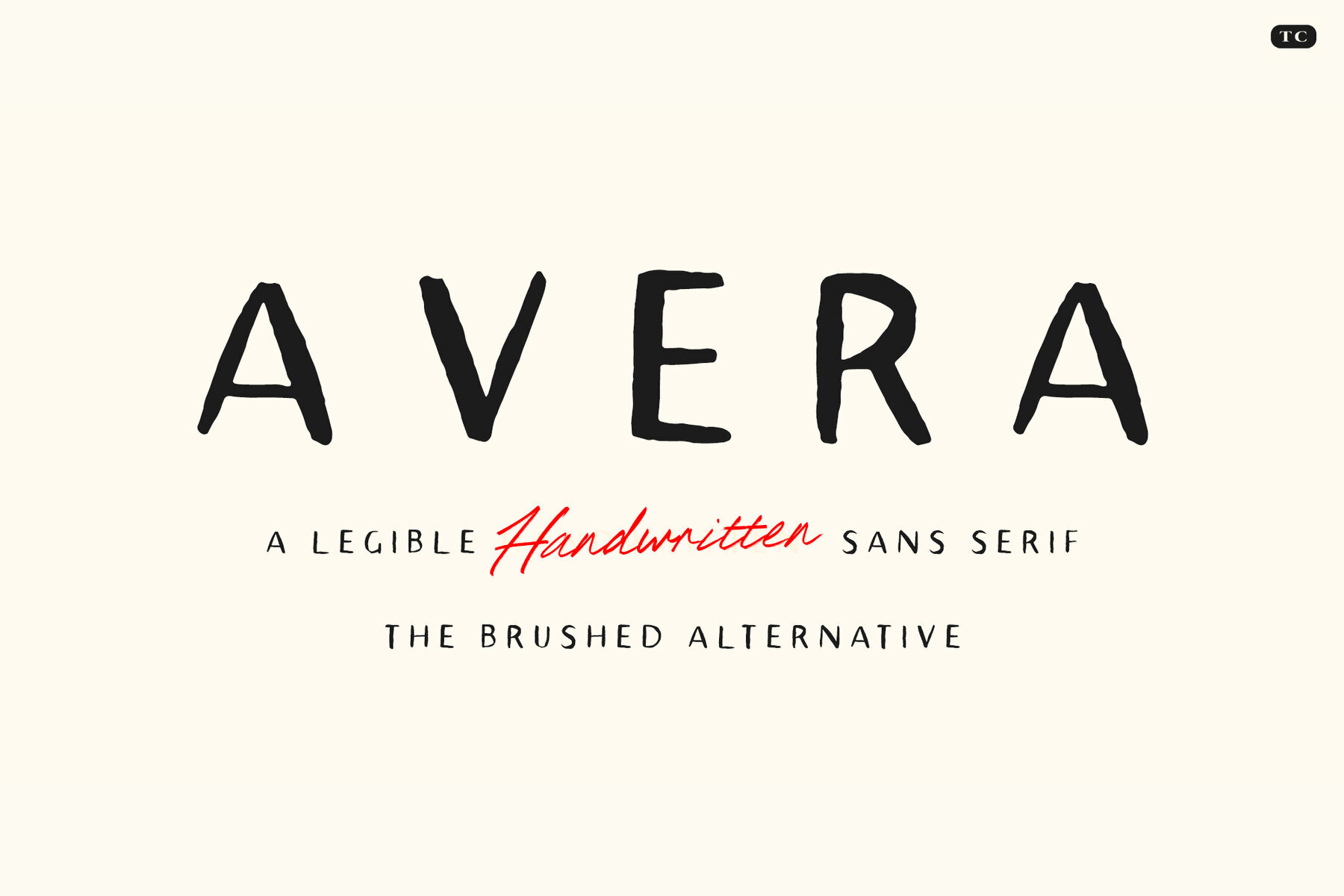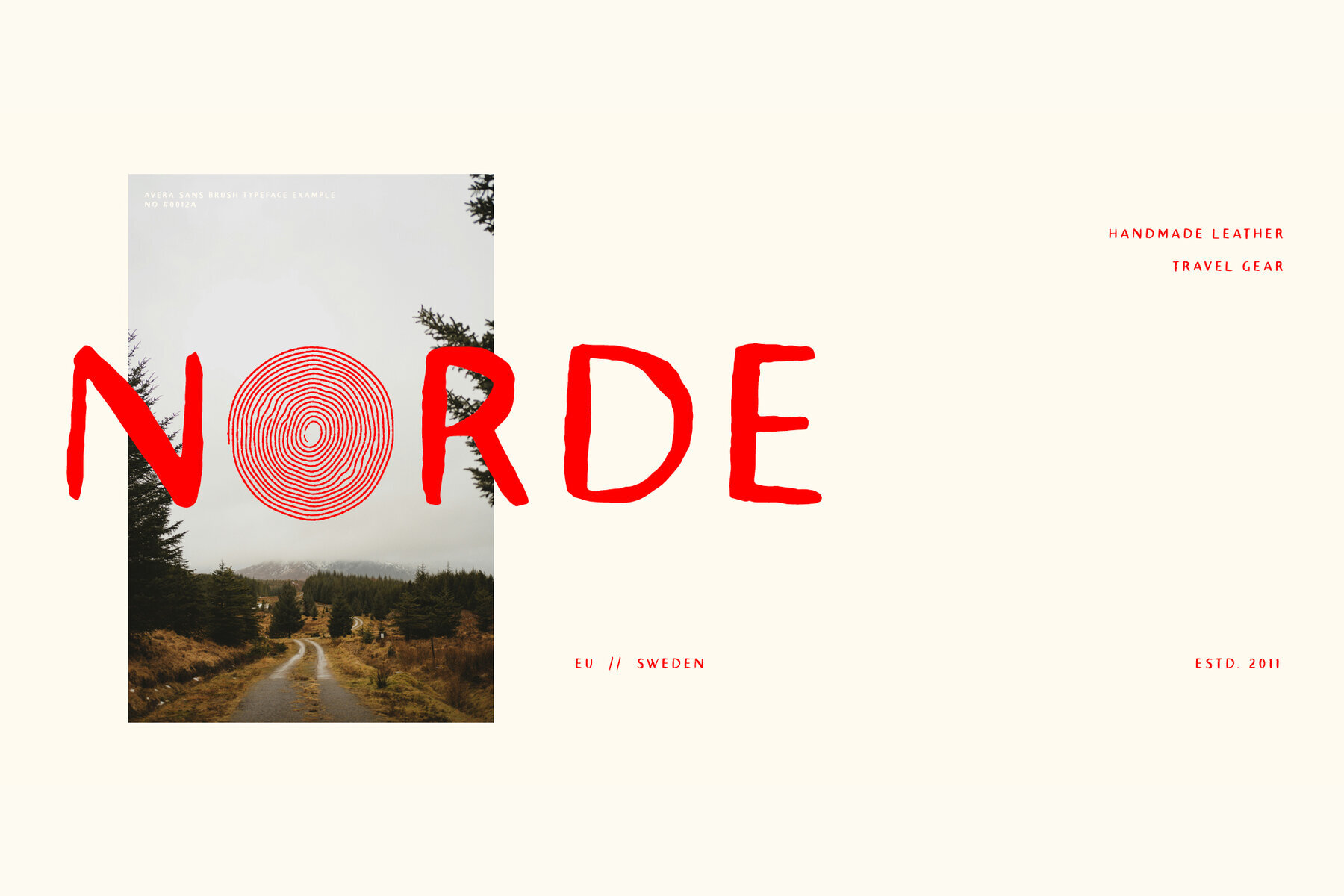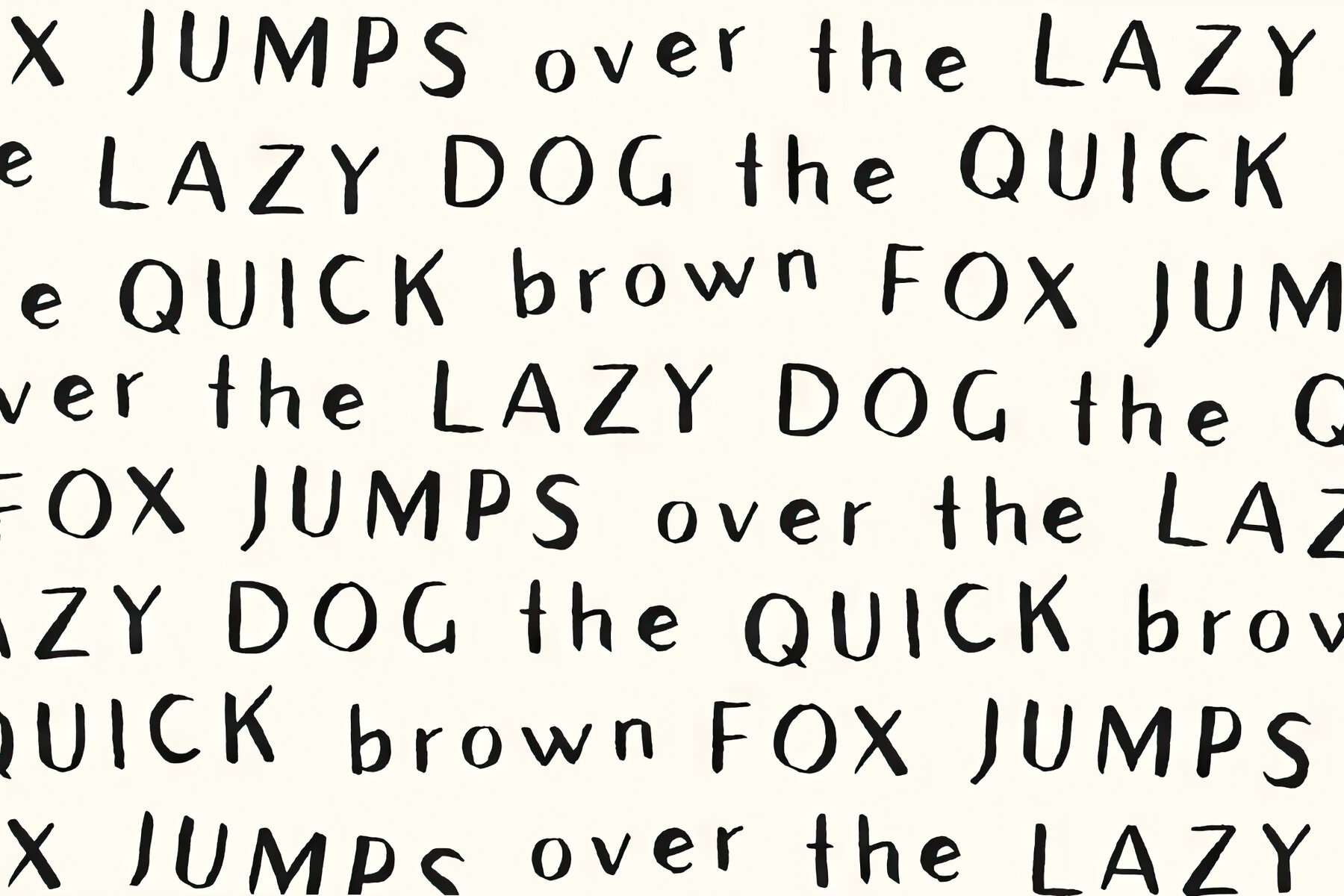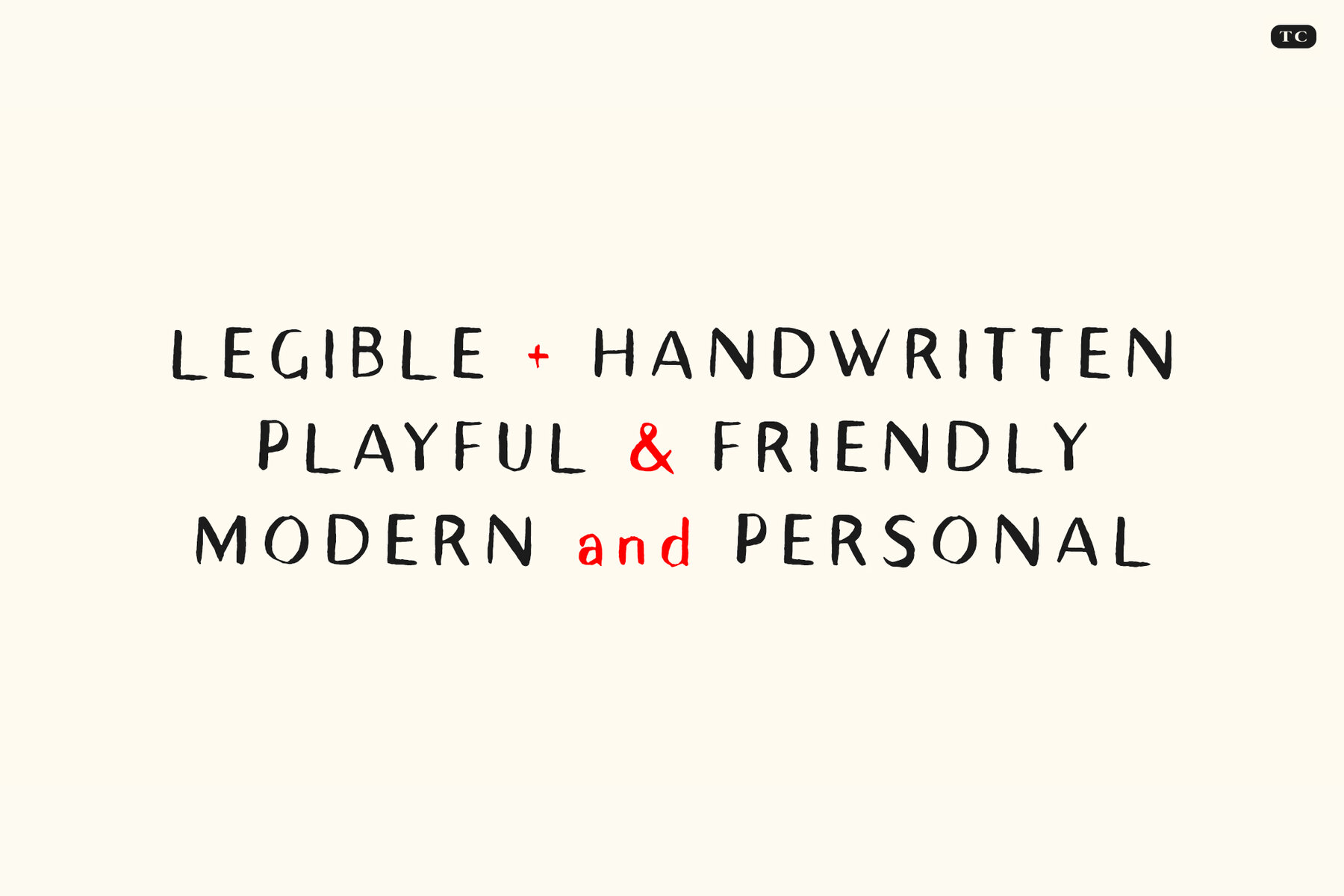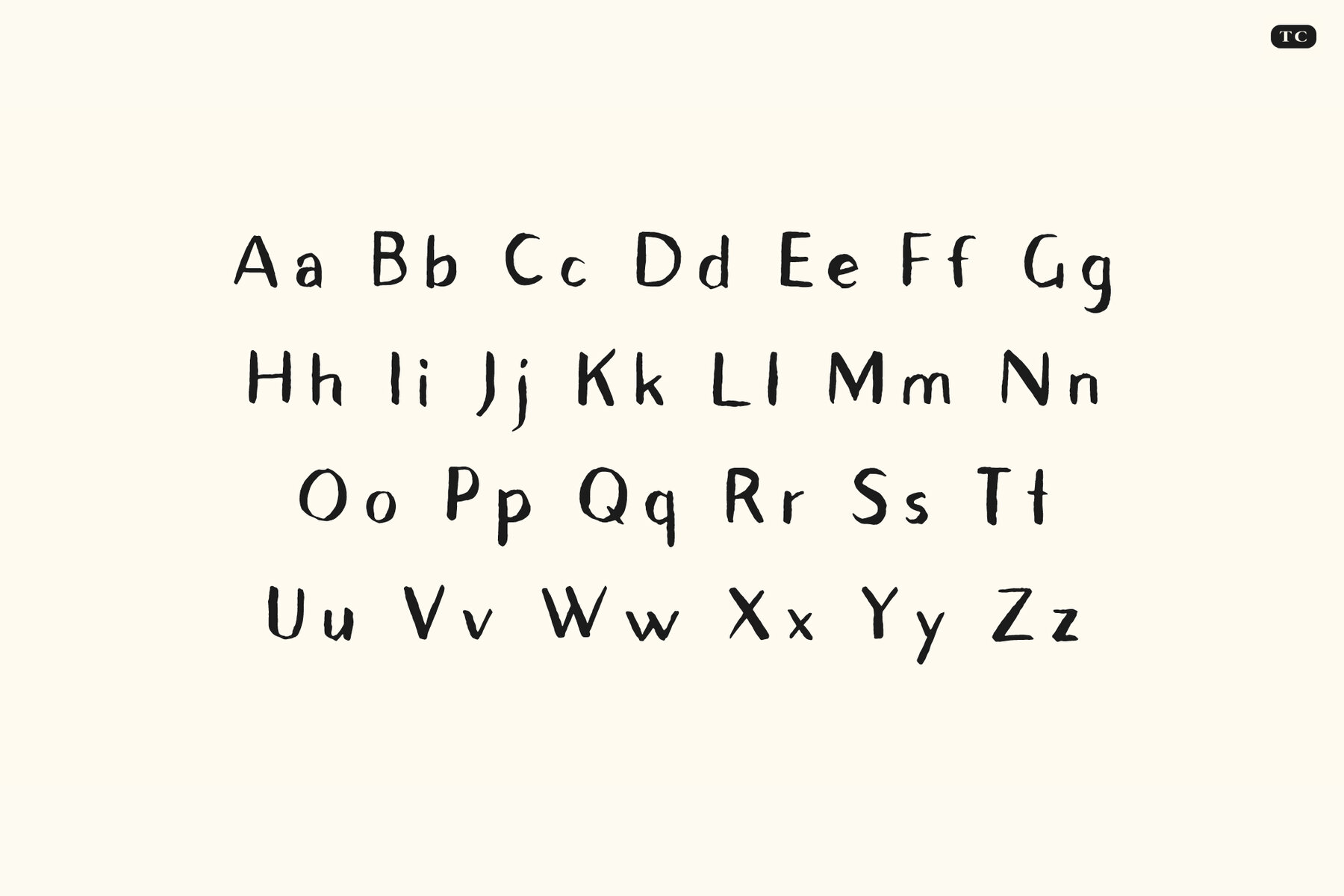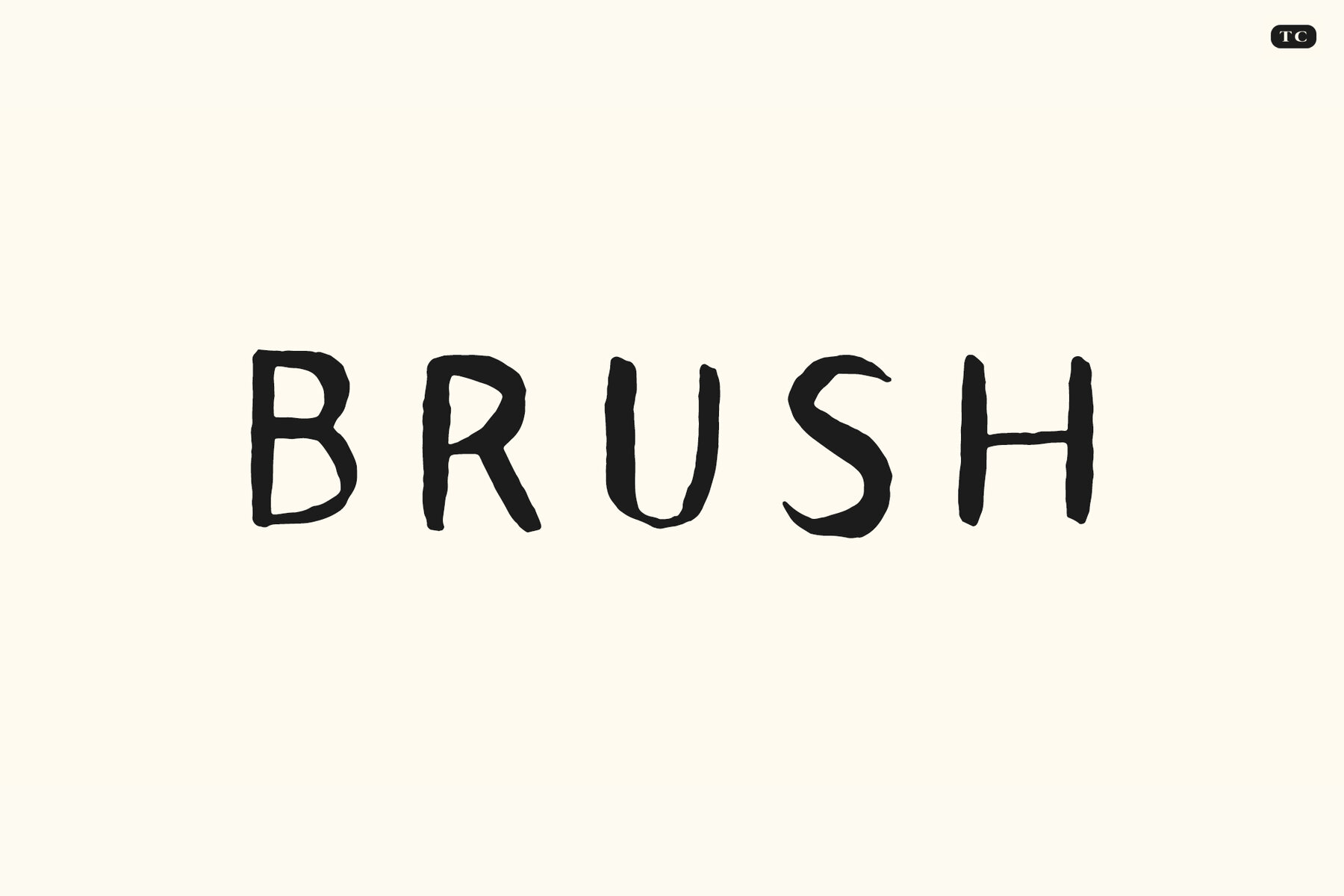
TC Avera Sans Brush Font
TC Avera Sans Brush Regular
Unveiling TC Avera Sans Brush, a single-weight font that infuses every word with the energy and expressiveness of hand-painted strokes. This typeface retains the clarity and simplicity of its precursor, Avera Sans, while introducing the organic, tactile qualities of brushwork. TC Avera Sans Brush is ideal for creating impactful visuals that demand attention. Its dynamic forms bring a sense of authenticity, perfect for designs that aim to be both modern and personable. Whether gracing the canvas of a poster, the front of a t-shirt, or the branding of a product that prides itself on craftsmanship, our latest brush font might fit the bill. It invites a connection, suggesting a backstory of artistry and the human hand. An excellent choice for messages that resonate on a personal level.